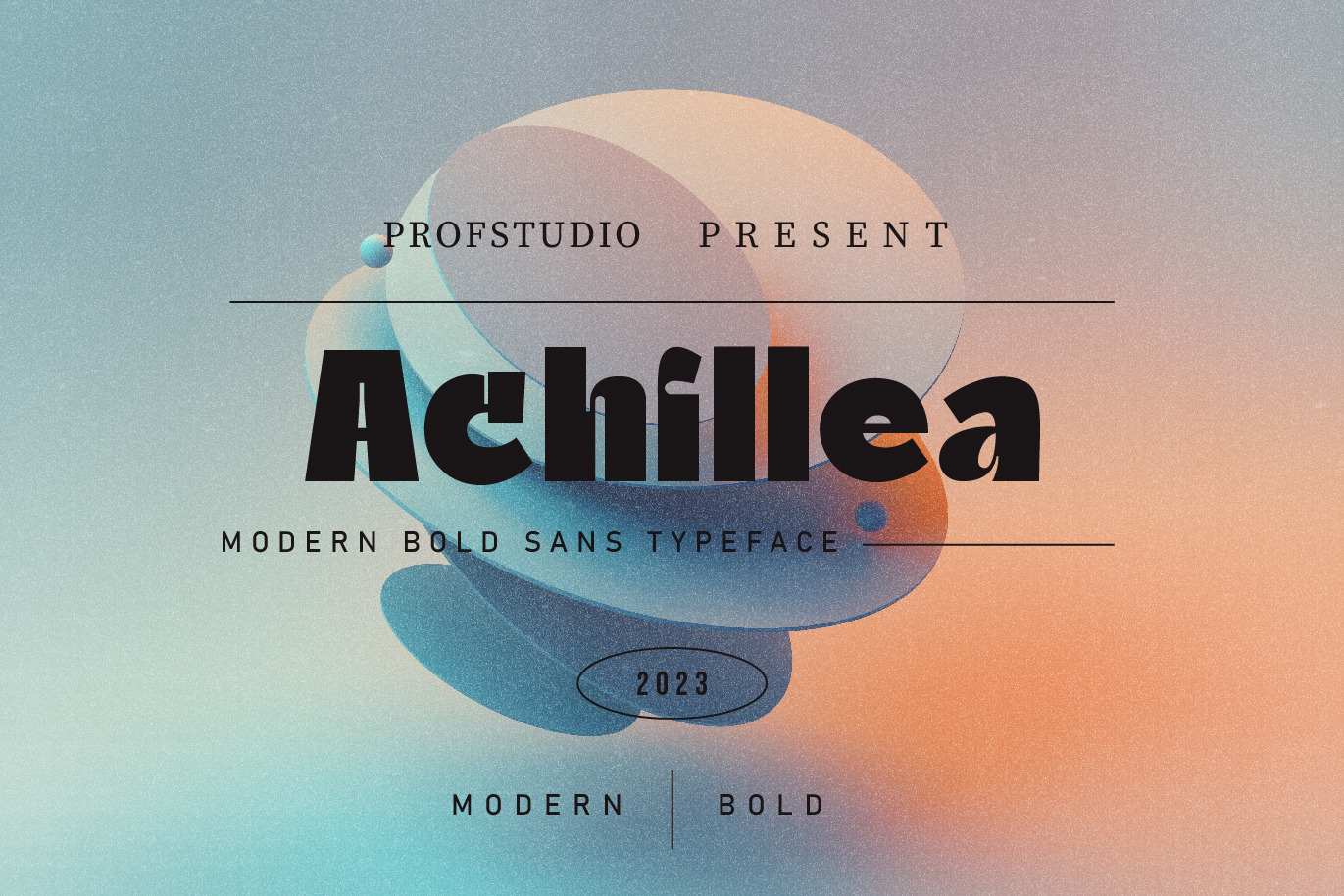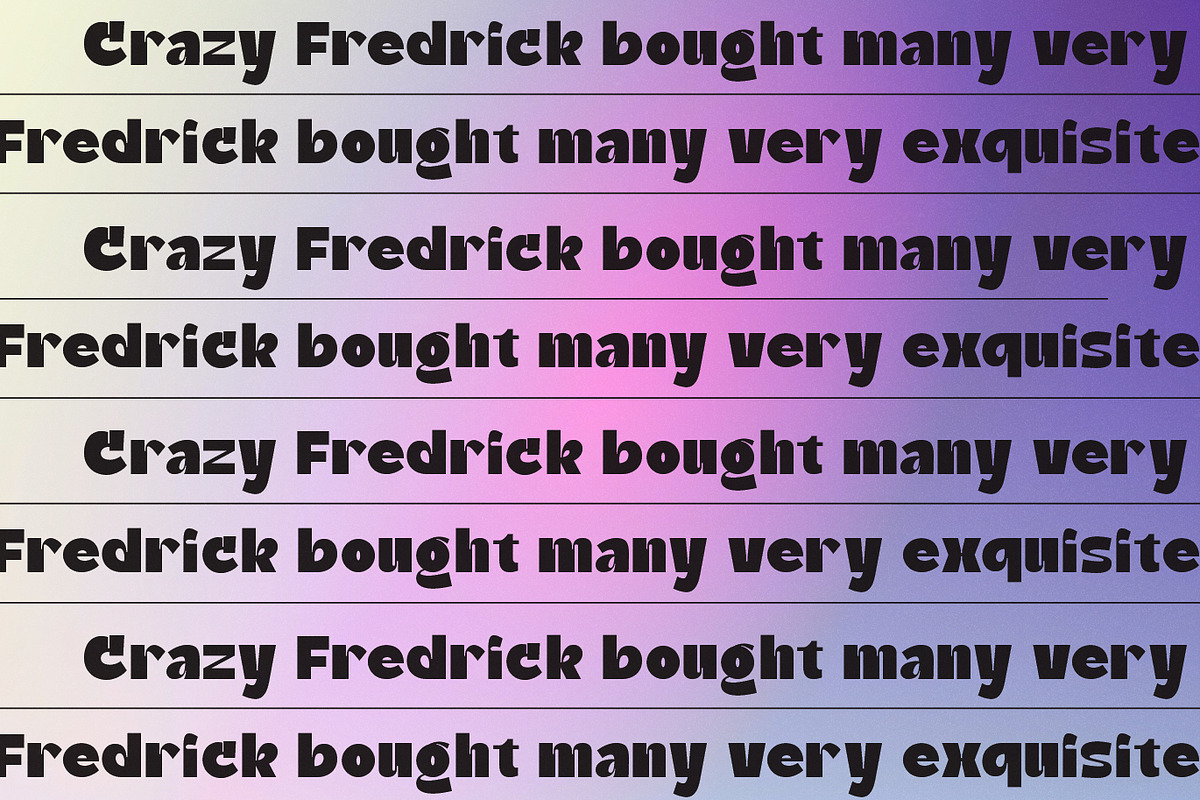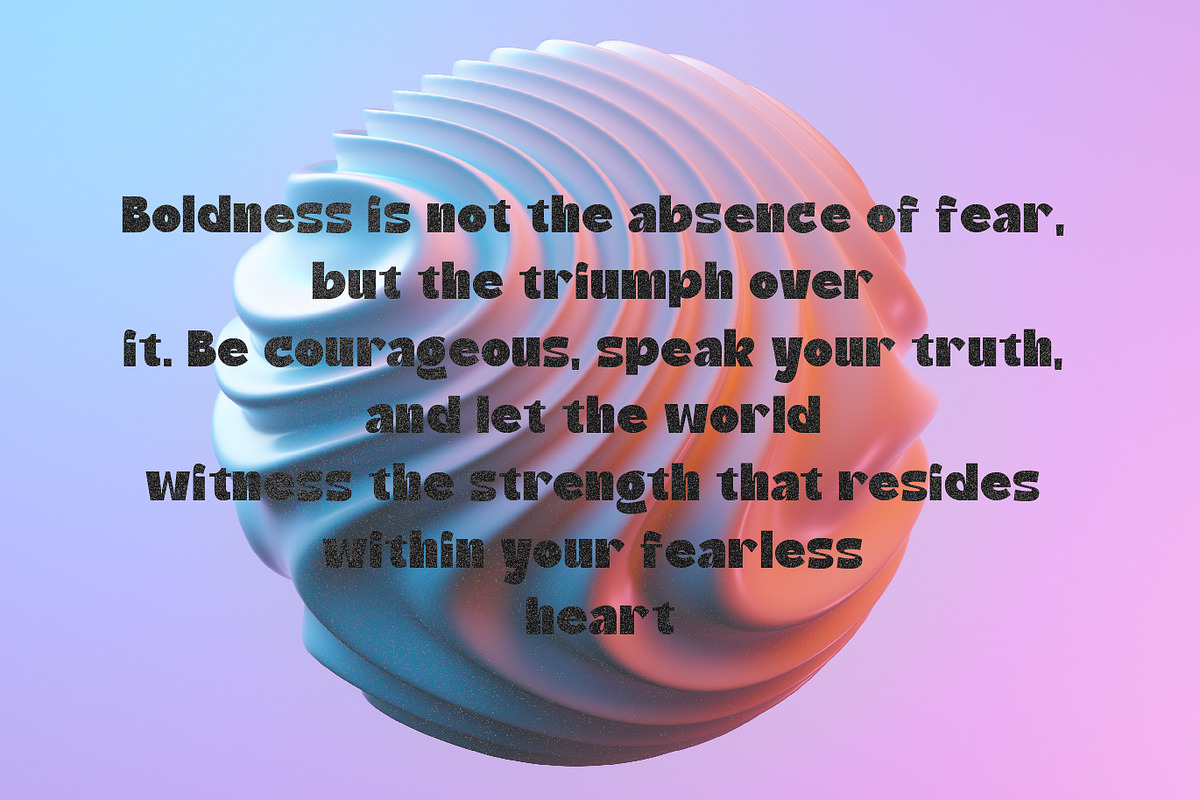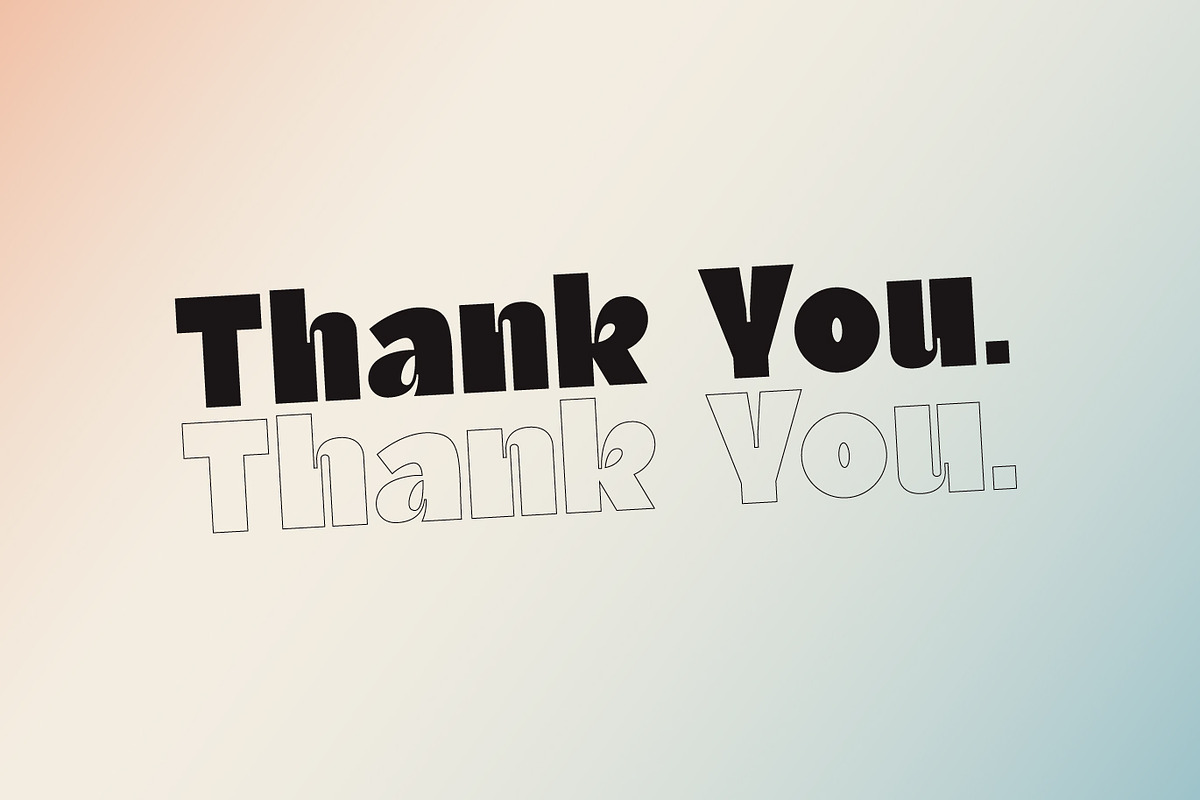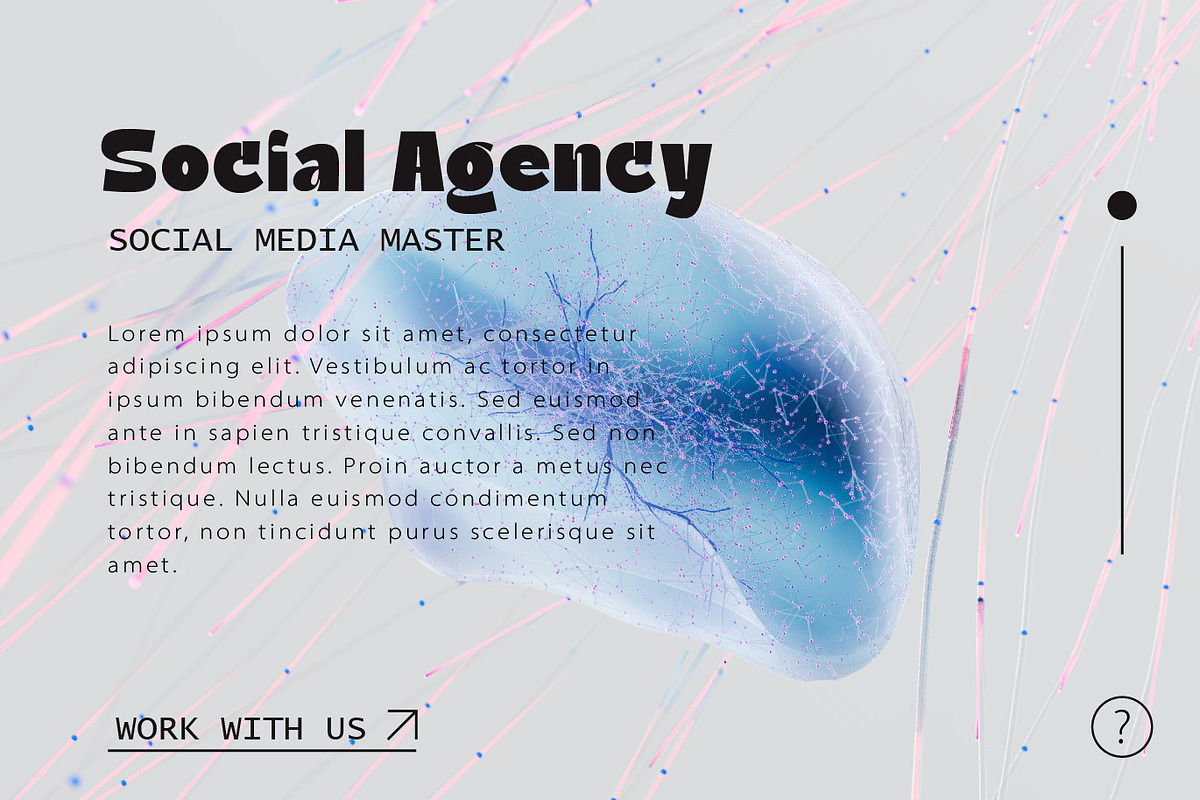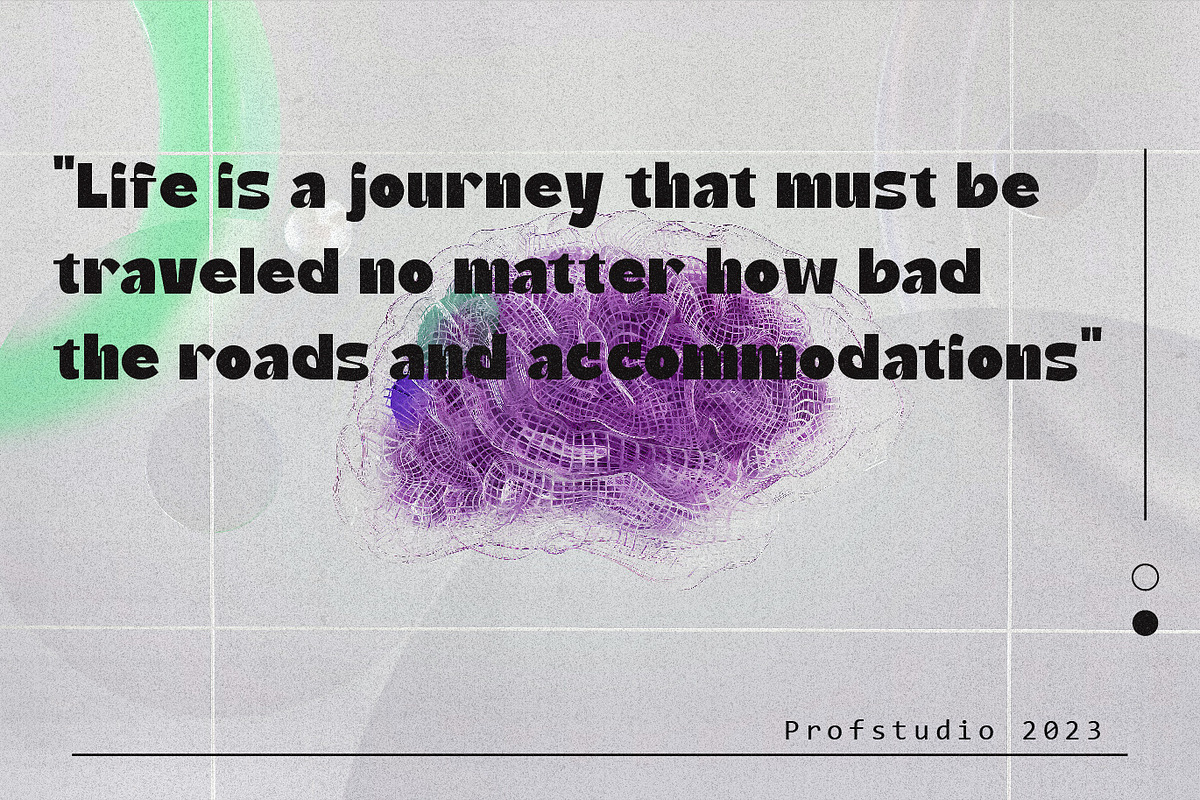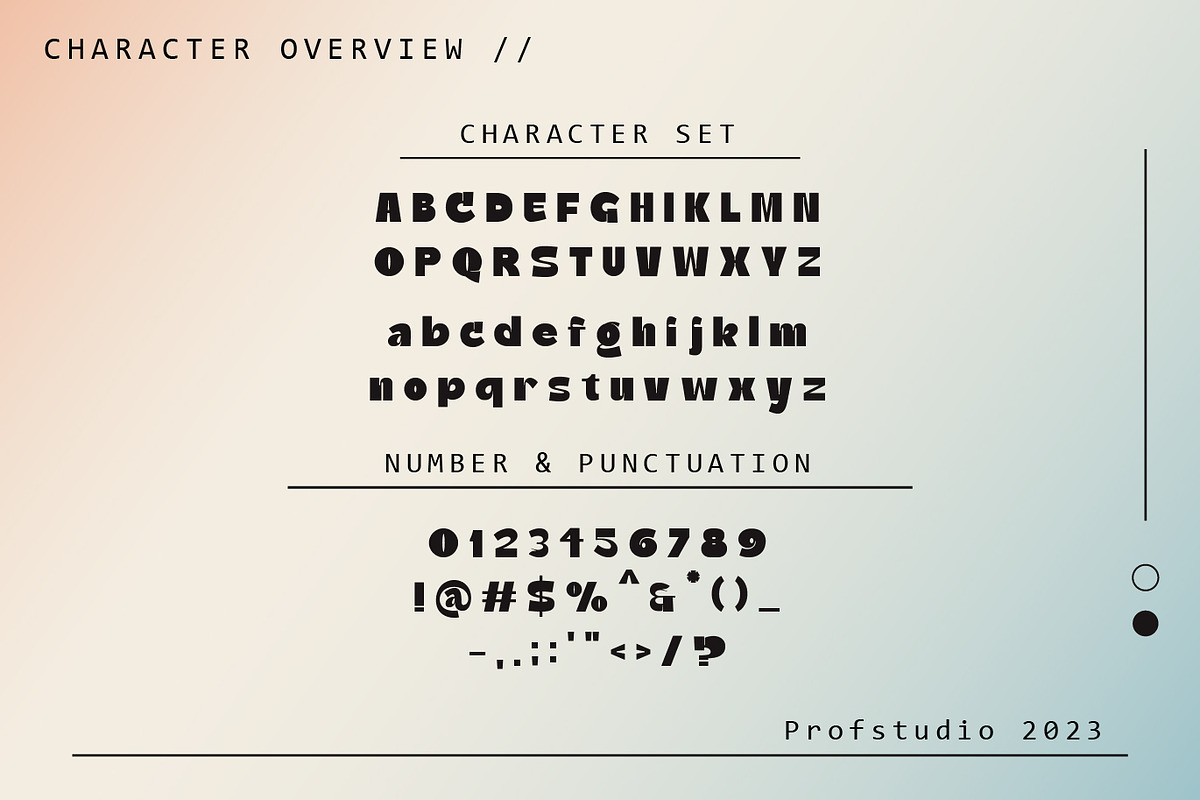
Achillea - Modern Sans Bold Typeface
Achillea - Bold Sans which can be interpreted professional. we keep this font looks Modern, Bold, readable, stylish, catchy and easy to use.
Achillea - is the great choice for event design ,magazine and many other design project. Achillea here to make your work to high level!!!